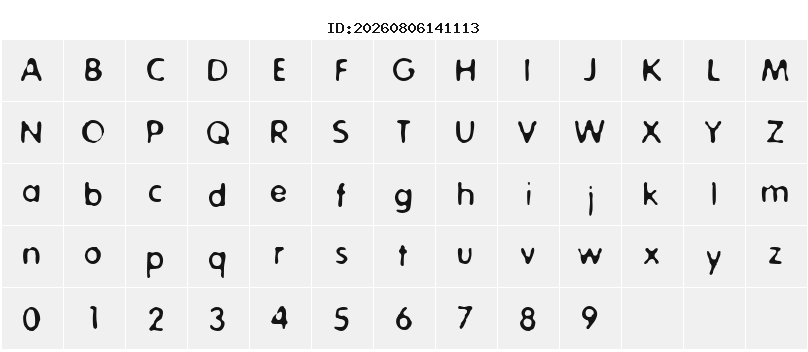
• Font Name: Onsoku Seinen
• Font Style: Plane
• Full Font Name: Onsoku Seinen Plane
About Onsoku Seinen.ttf
Onsoku Seinen.ttf is a modern, elegant sans-serif font designed for ultimate readability and visual harmony. Perfect for branding, headlines, web design, and print materials.